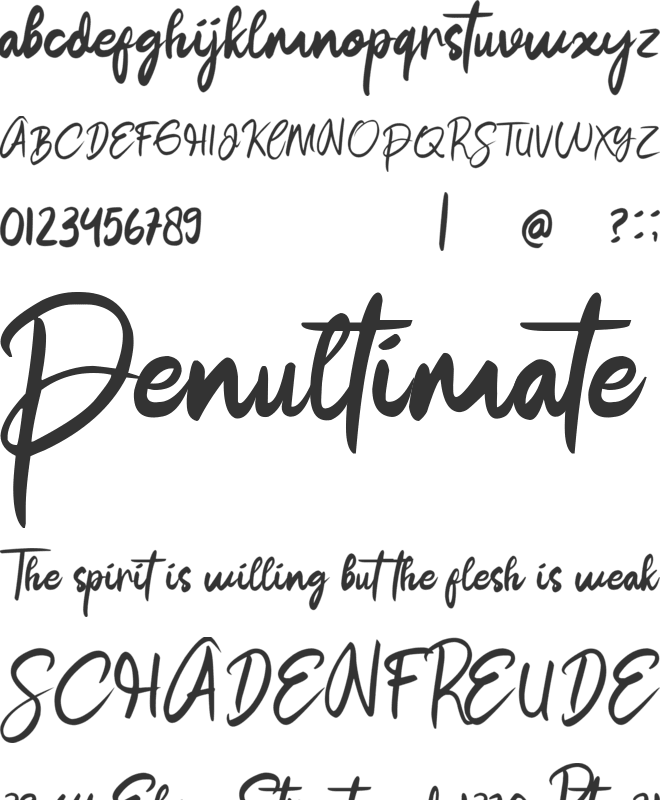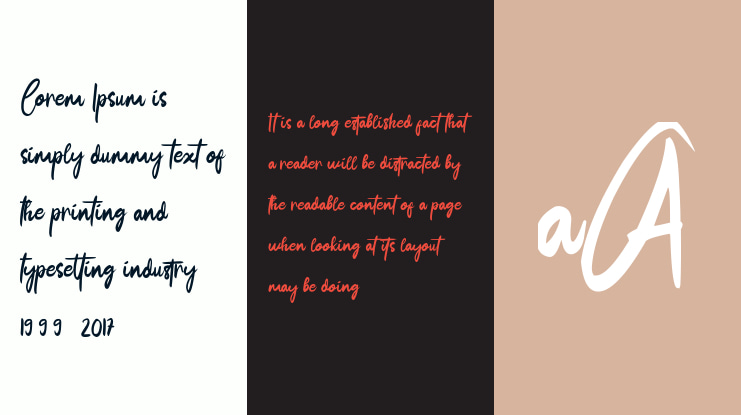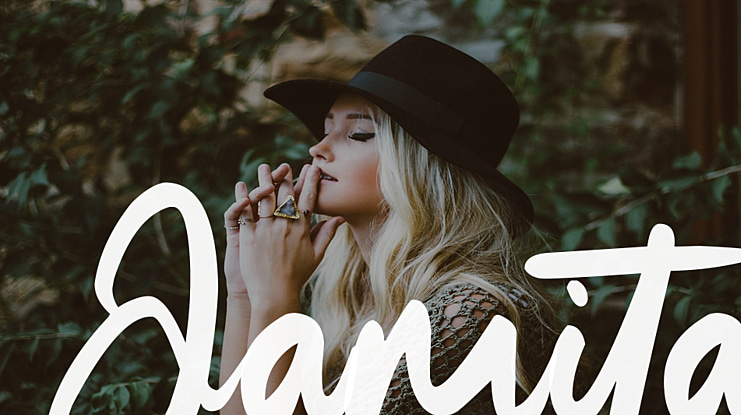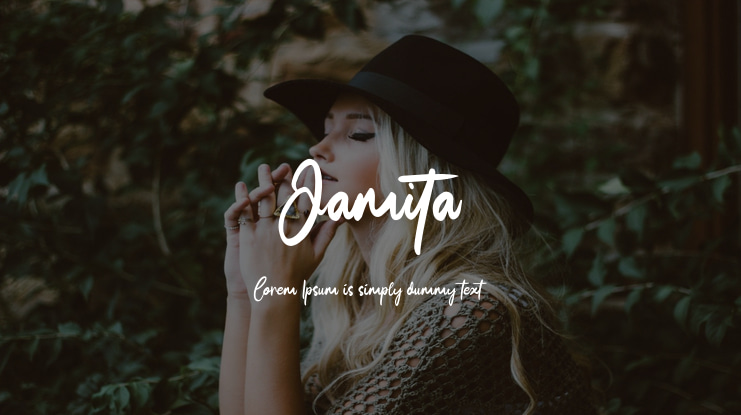
Jamita Font
Jamita font is a simple handwritten font that keeps it authentic. The font has beautiful curves for each letter and is available in ligature, stylistic alternate and multilingual support. This font is suitable for logos, branding, watermark photography, wedding invitations, quetes, etc. deliver the quality of your work to the highest level.